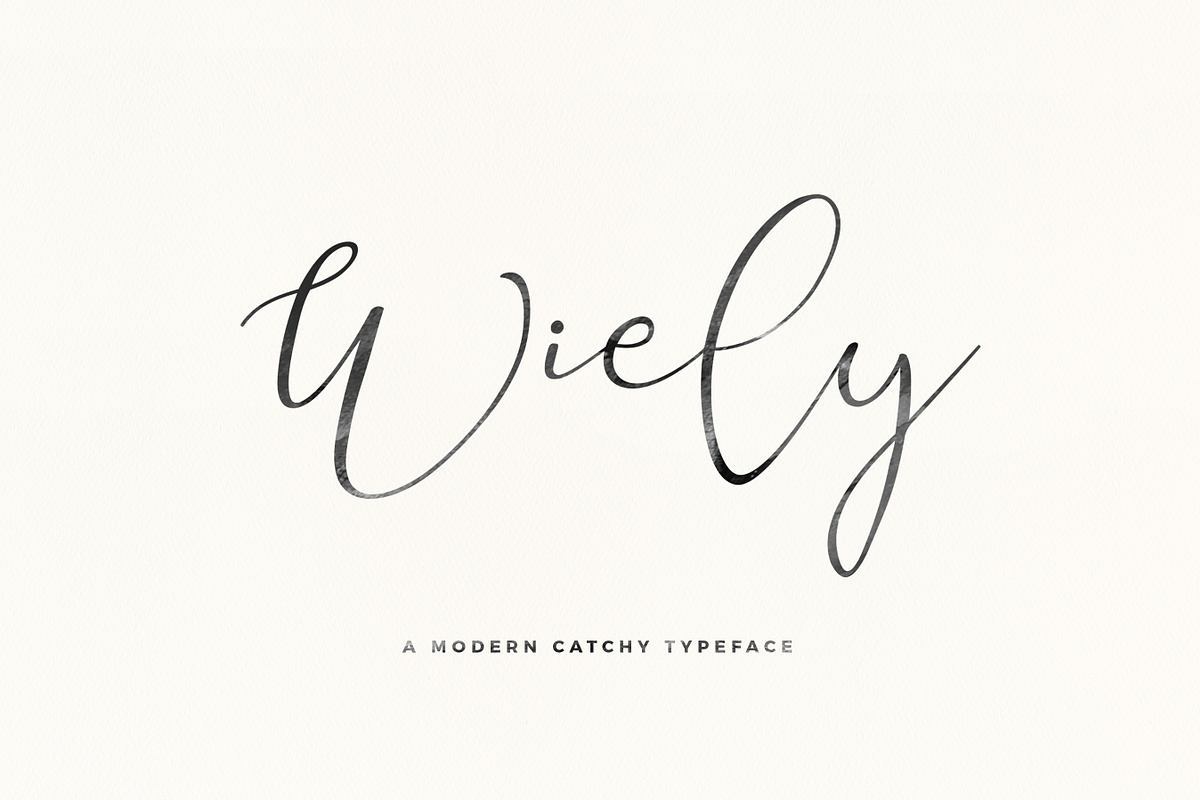
Please note that you must purchase this font for commercial use. You can download Its Miss Wiely Font for free, strictly for personal testing purposes only. Its Miss Wiely is a playful, elegant handwritten script font designed to bring charm, femininity, and a modern handwritten touch to your creative projects. With its fluid curves, smooth connections, and graceful style, Its Miss Wiely Font Free Download is perfect for wedding invitations, branding, social media posts, greeting cards, logos, and lifestyle packaging.
This font beautifully balances casual elegance and stylish flair, making it a great choice for both personal and professional use. It includes uppercase and lowercase letters, numerals, punctuation, and multilingual support—ensuring full versatility for global creatives.
Whether you're designing a boutique brand or a heartfelt message, Its Miss Wiely adds warmth, personality, and sophistication to every letter.